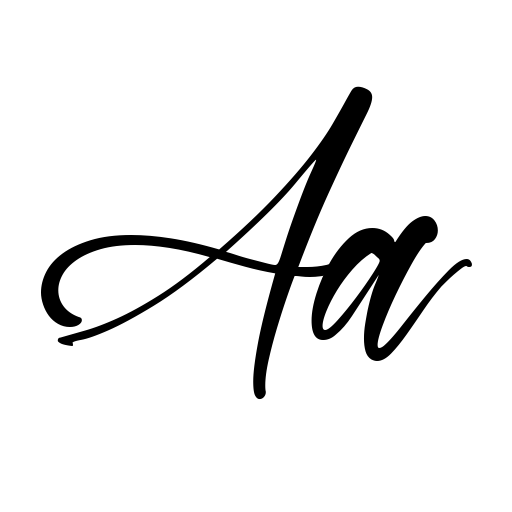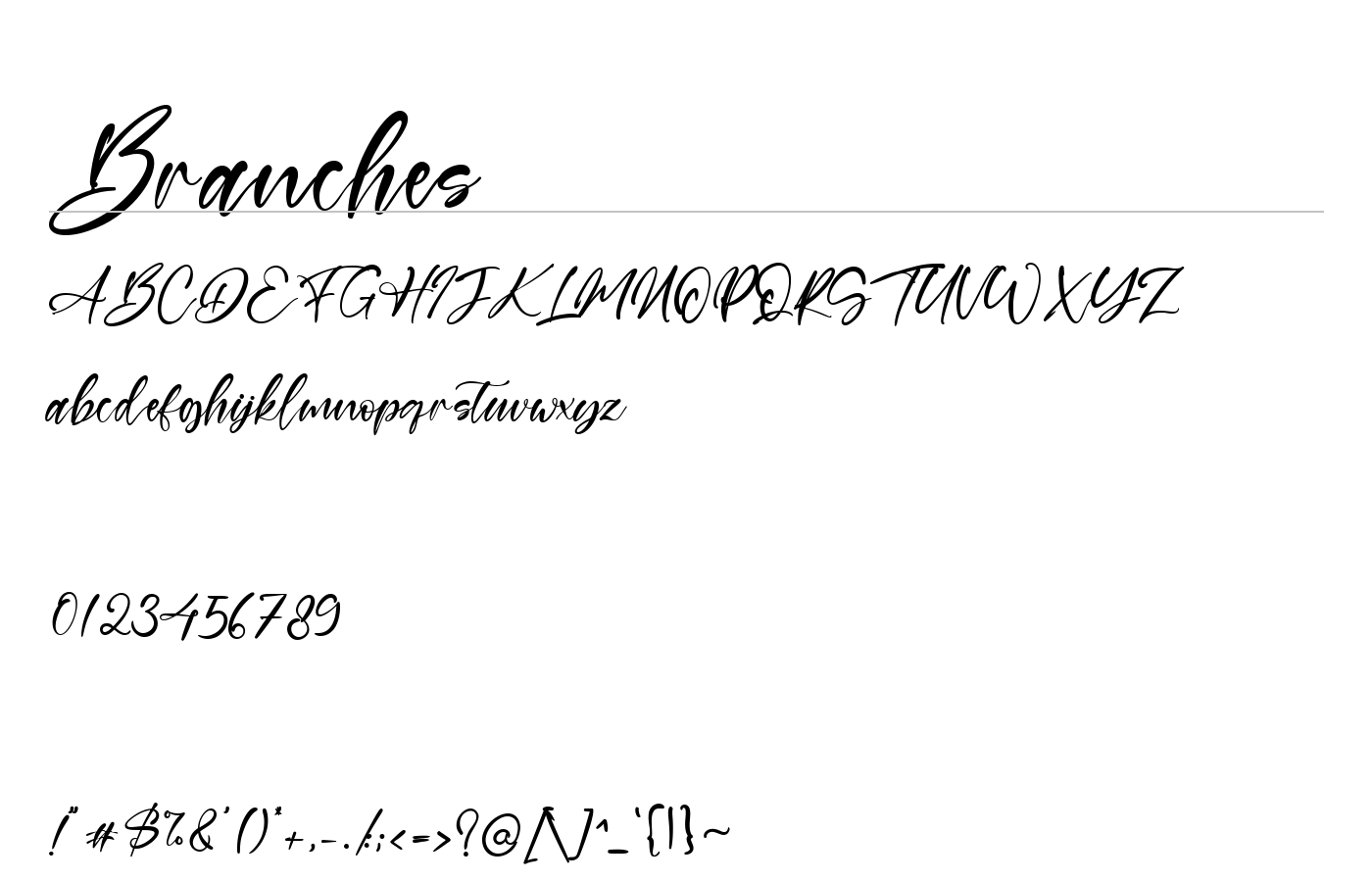
Branches Font is an elegant, flowing script typeface with a natural, handwritten style. Its thin, calligraphic strokes and slightly condensed letterforms convey a graceful and sophisticated personality, making it ideal for invitations, branding, and stylish editorial designs. This font works best where a personal, artistic touch is desired, bringing a refined yet approachable look to logos, packaging, and decorative headlines.
Branches Font
About Branches Font
| Font family | Branches Font |